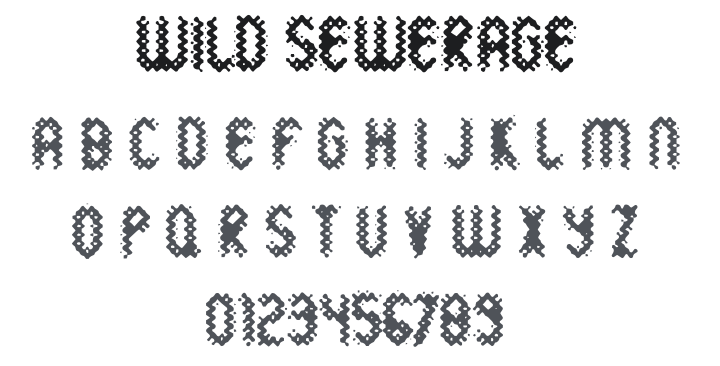
Wild Sewerage Font
About Wild Sewerage
Wild Sewerage is a bold, all-caps display typeface where every letterform is rendered in a halftone dot pattern — chunky characters built from irregular clusters of dots that give them a grainy, deteriorating quality, as if photocopied a hundred times or printed on a leaky inkjet. The dotted edges fray and scatter into the surrounding space. Perfect for horror designs, underground zines, punk posters, grunge branding, and any headline needing a raw, half-crazy, lo-fi attitude.